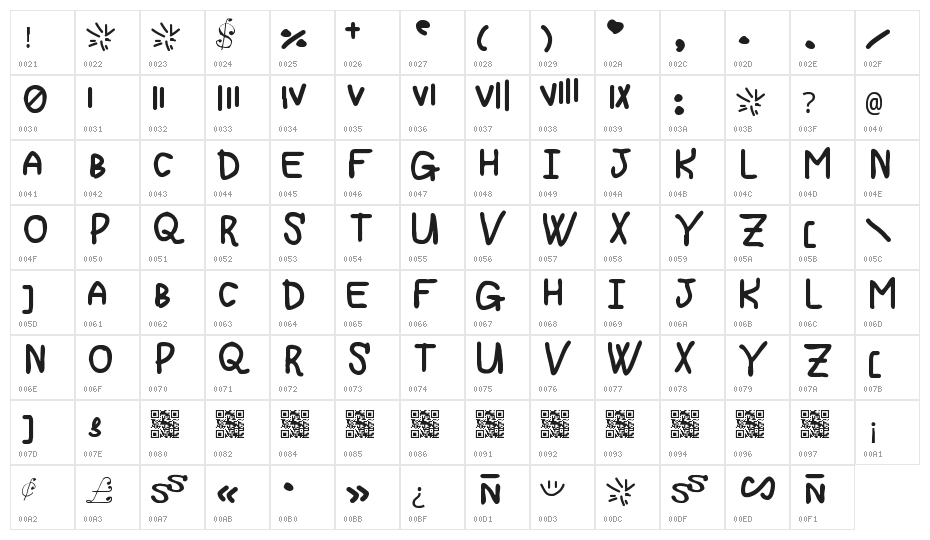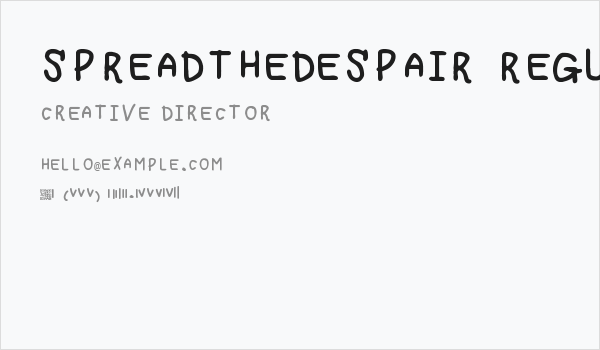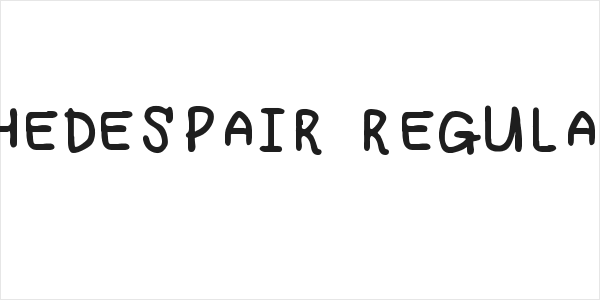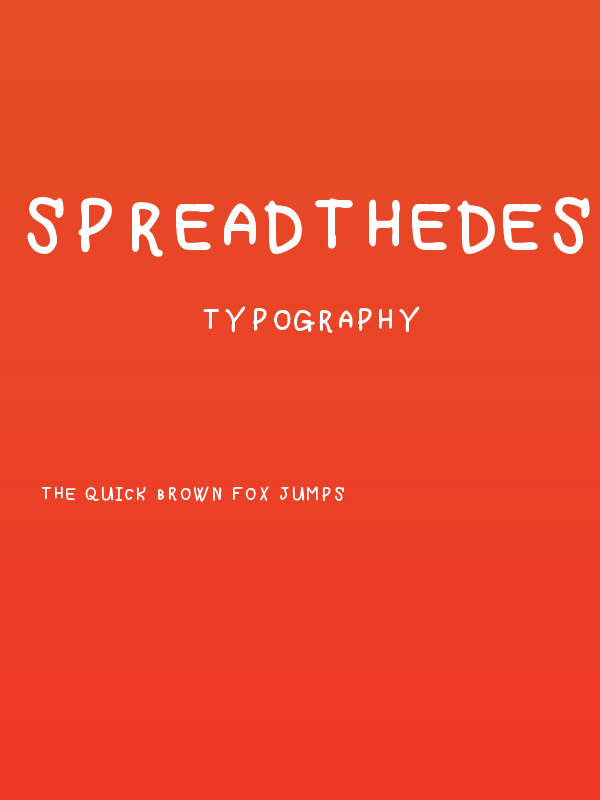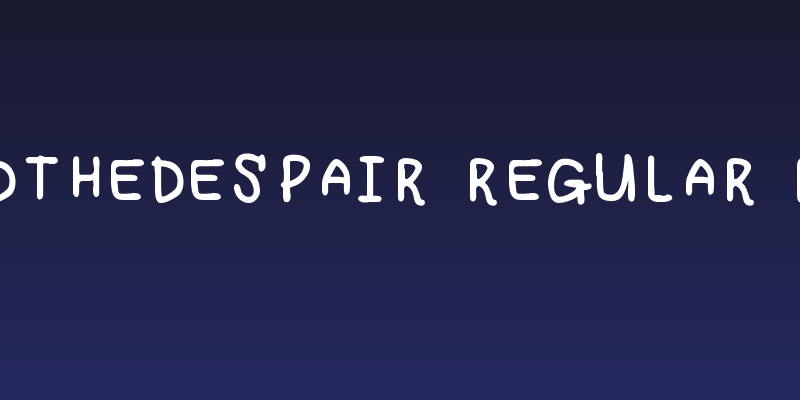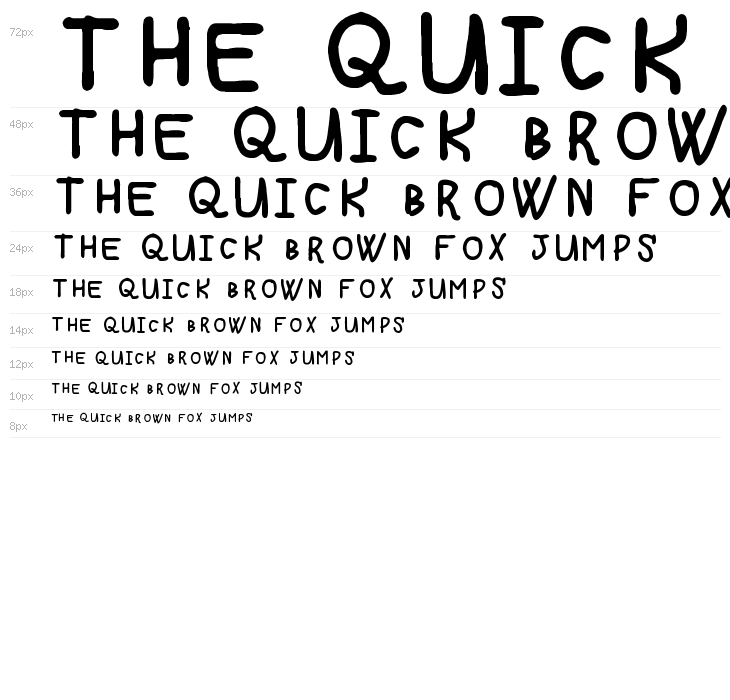
This font features a playful and informal handwritten style, characterized by its irregular and slightly whimsical letterforms. The strokes are uneven, giving it a casual and approachable feel. The uppercase and lowercase letters maintain a consistent style, with rounded edges and a slightly bouncy baseline that adds to its charm. The numerals and special characters follow the same playful aesthetic, making it suitable for creative and informal projects. Its unique style is perfect for designs that aim to convey a sense of fun and spontaneity.
| Proposed Projects | Ideal for children's books, greeting cards, playful branding, and casual invitations. |